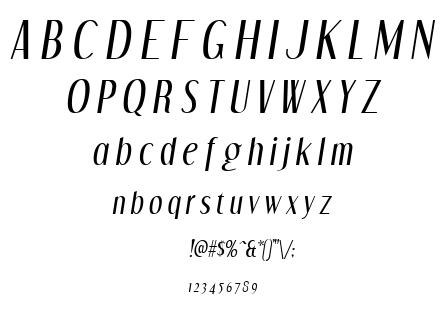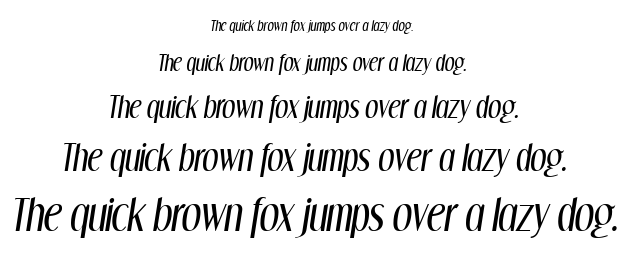
Dream Orphans Font
Dream Orphans is a condensed, humanist sans serif display font. While some might find the quaggy curves charming, you should also consider the more refined Dream Orphanage font family. Don’t forget to read the files inside the zip for details. Updated in 2012.